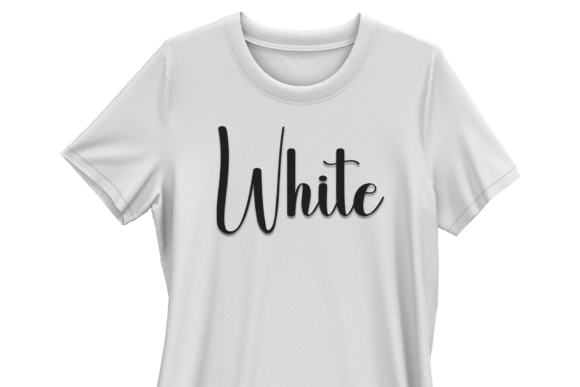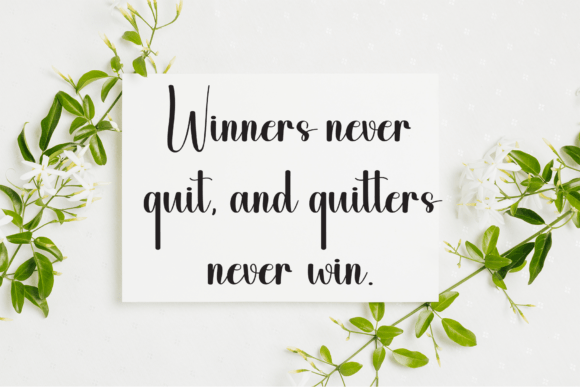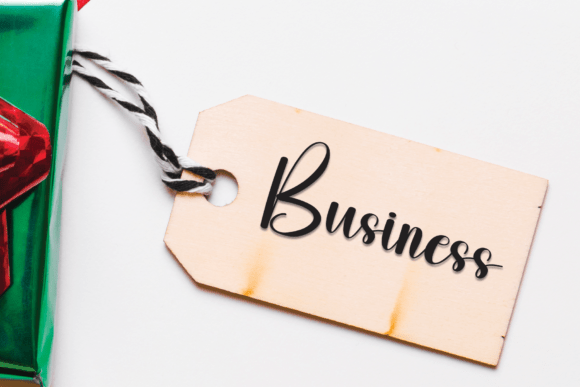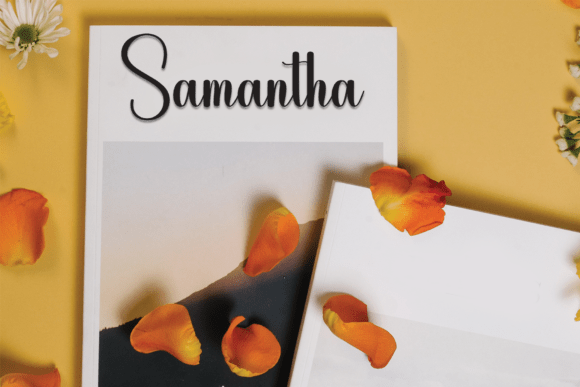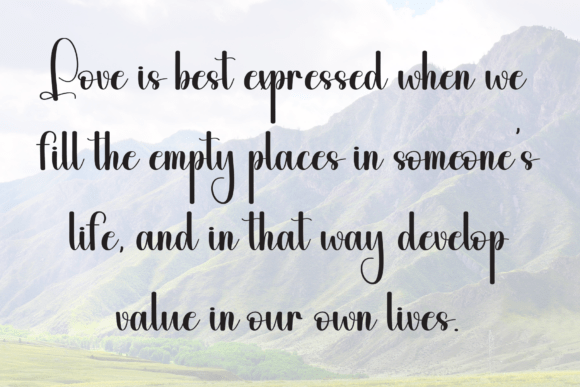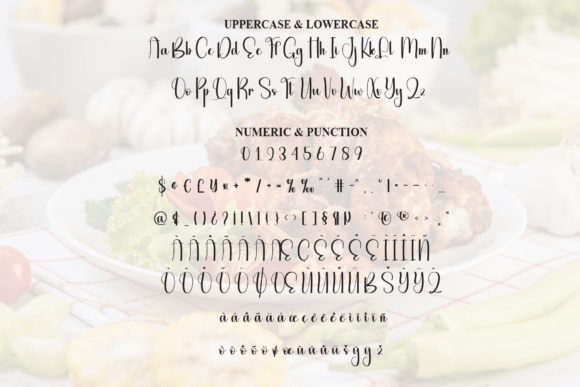
Introducing Bigfood Font: Elevate Your Designs with Artistic Flair and Contemporary Elegance
In the world of typography, fonts play a crucial role in conveying the tone and personality of a design. For designers and crafters looking to add a touch of sophistication and creativity to their projects, Bigfood Font is an exceptional choice. This stylish script font is designed to exude artistic flair and contemporary elegance, making it perfect for a wide range of applications.
The Characteristics of Bigfood Font
Bigfood Font is characterized by its fluid brush strokes, dynamic curves, and expressive letterforms. These features come together to capture the essence of hand-painted calligraphy with a modern twist. The font’s natural flow and vibrant character make it an excellent choice for designers looking to add a creative and sophisticated touch to their work.
Key Features of Bigfood Font
- Fluid Brush Strokes: Bigfood Font features fluid brush strokes that give it a natural, hand-painted look. This characteristic makes it perfect for designs that require a personal touch.
- Dynamic Curves: The font’s dynamic curves add a level of sophistication and elegance, making it suitable for high-end designs and luxury brands.
- Expressive Letterforms: Each letterform in Bigfood Font is uniquely designed to convey a sense of artistic flair and creativity.
- Modern Twist: While the font is inspired by traditional hand-painted calligraphy, it has a modern twist that makes it suitable for contemporary designs.
Use Cases for Bigfood Font
Bigfood Font is incredibly versatile and can be used in a variety of design projects, including:
- Logos: The font’s unique characteristics make it an excellent choice for logos that require a touch of elegance and sophistication.
- Invitations: Bigfood Font is perfect for invitations, such as wedding invitations, birthday invitations, and other special occasion invites.
- Packaging: The font’s creative and sophisticated look makes it suitable for product packaging, especially for luxury brands and high-end products.
- Social Media Graphics: Bigfood Font can add a touch of personality and elegance to social media graphics, such as Instagram posts, Facebook covers, and Twitter headers.
Benefits of Using Bigfood Font
Using Bigfood Font in your designs offers several benefits, including:
- Visual Impact: The font’s unique characteristics and expressive letterforms make it a great choice for designs that require visual impact.
- Versatility: Bigfood Font can be used in a wide range of design projects, from logos and invitations to packaging and social media graphics.
- Creativity: The font’s artistic flair and contemporary elegance make it an excellent choice for designers looking to add a creative touch to their work.
- Sophistication: Bigfood Font’s dynamic curves and fluid brush strokes give it a sophisticated look that’s perfect for high-end designs and luxury brands.
Bigfood Font is an exceptional choice for designers and crafters looking to add a touch of artistic flair and contemporary elegance to their designs. With its fluid brush strokes, dynamic curves, and expressive letterforms, this stylish script font is perfect for a wide range of applications. Its versatility, creativity, and sophistication make it an excellent addition to any design project.
Whether you’re designing a logo, invitation, packaging, or social media graphics, Bigfood Font is sure to deliver both visual impact and versatility. So why not give it a try and elevate your designs to the next level?